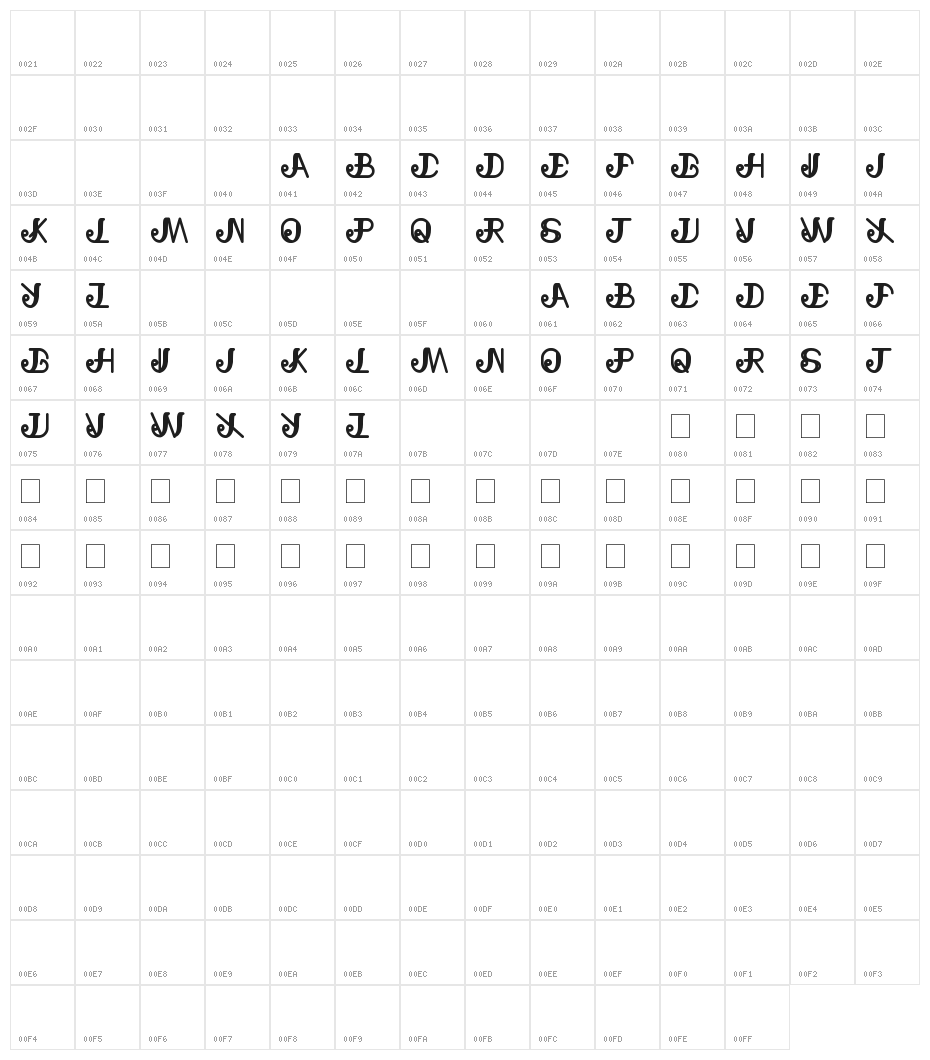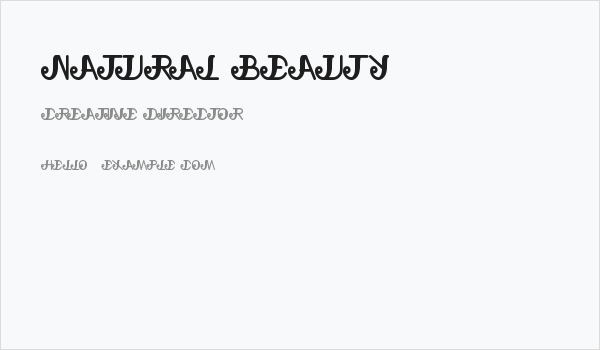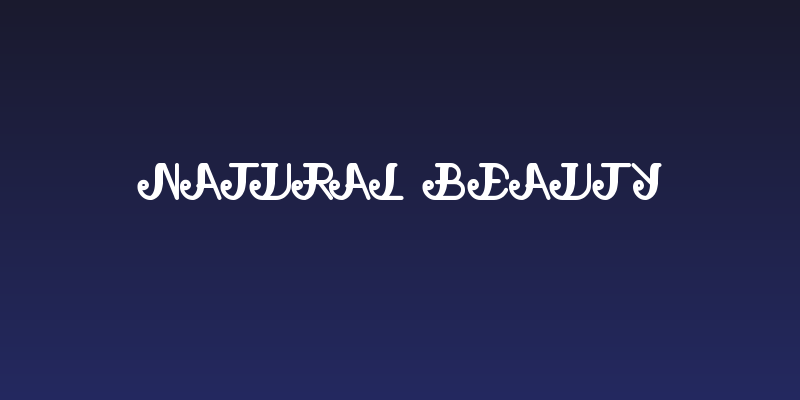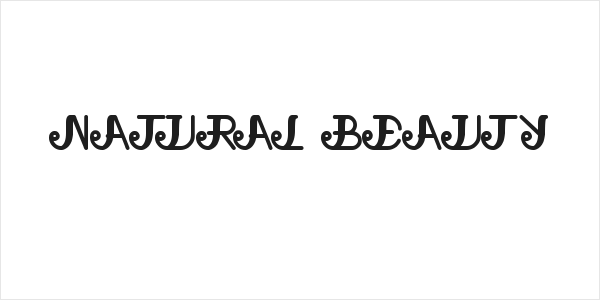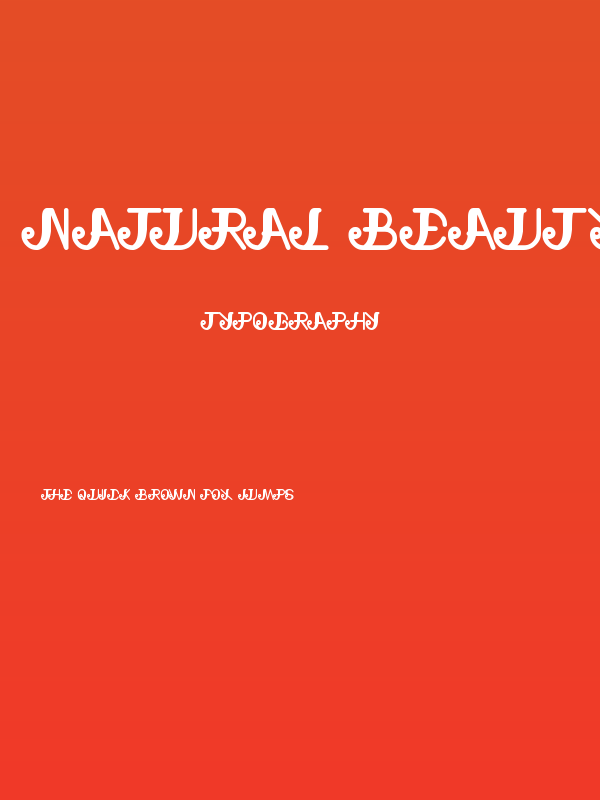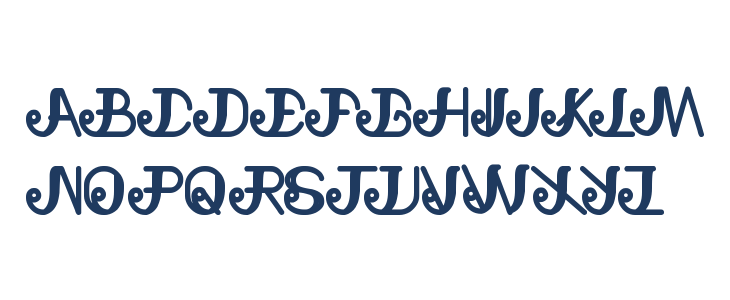
natural beauty Font
natural beauty Description
This font features an ornate and decorative style, characterized by its elaborate swirls and curls that extend from the ends of each letter. The uppercase letters are particularly embellished, creating a sense of elegance and artistic flair. The font maintains a consistent thickness throughout, with medium contrast in stroke weight. Its unique design elements make it stand out, offering a whimsical and playful aesthetic. The spacing between characters is normal, allowing for readability despite the intricate details. This font is ideal for creative projects that require a touch of sophistication and charm.
| Proposed Projects | Ideal for wedding invitations, greeting cards, branding for luxury products, and artistic posters. |